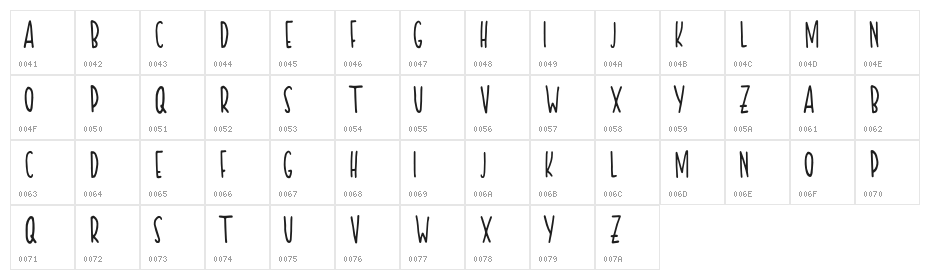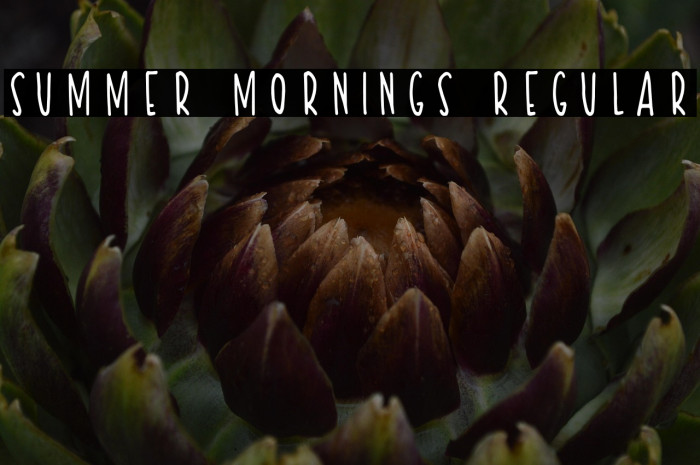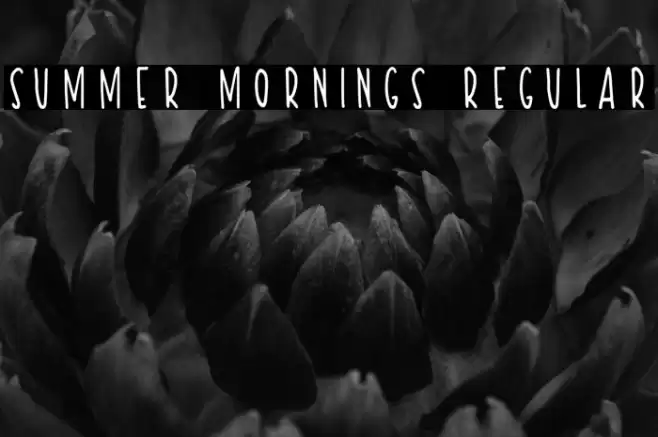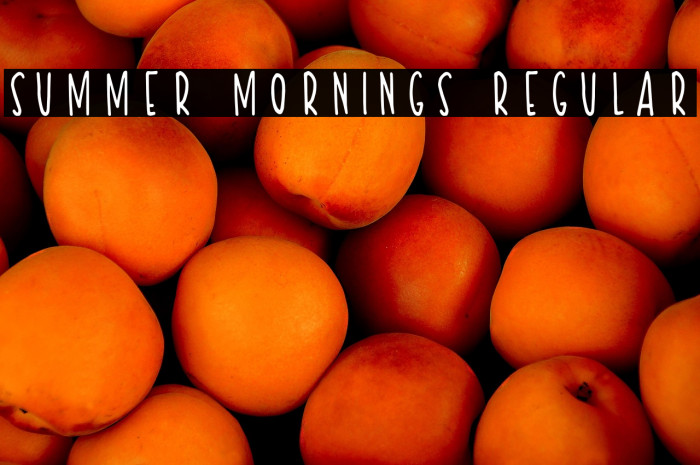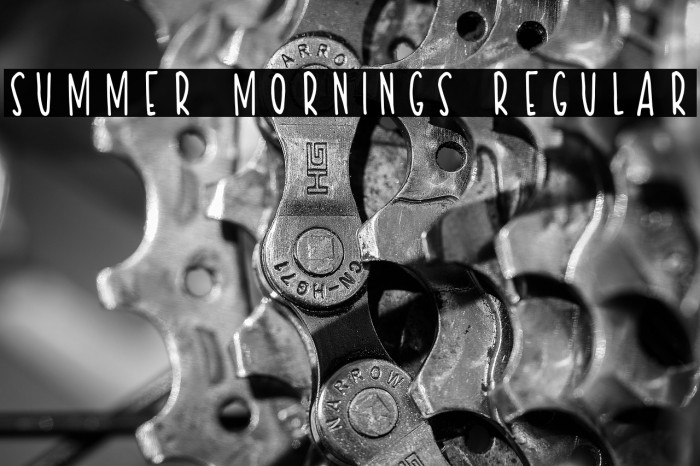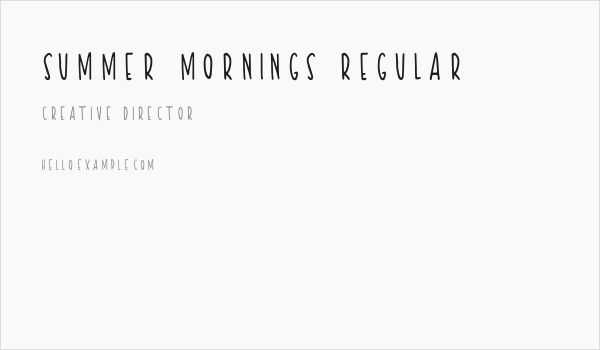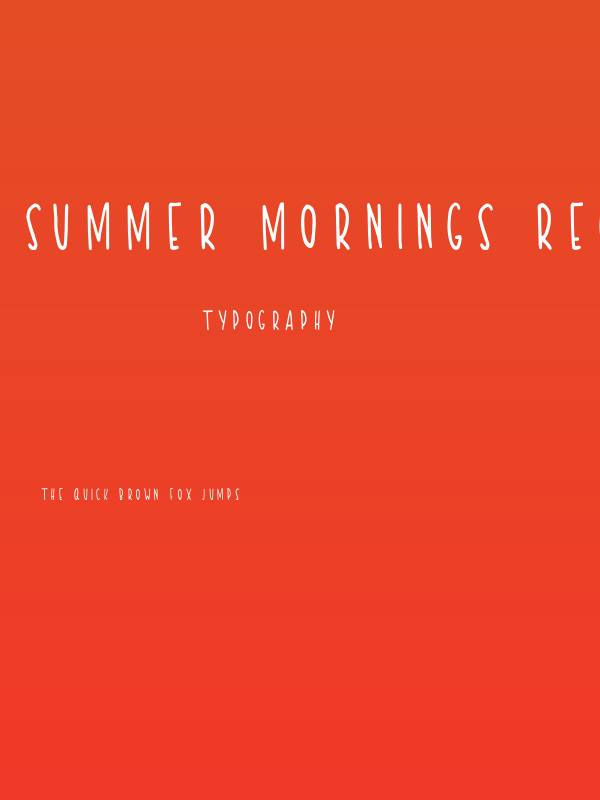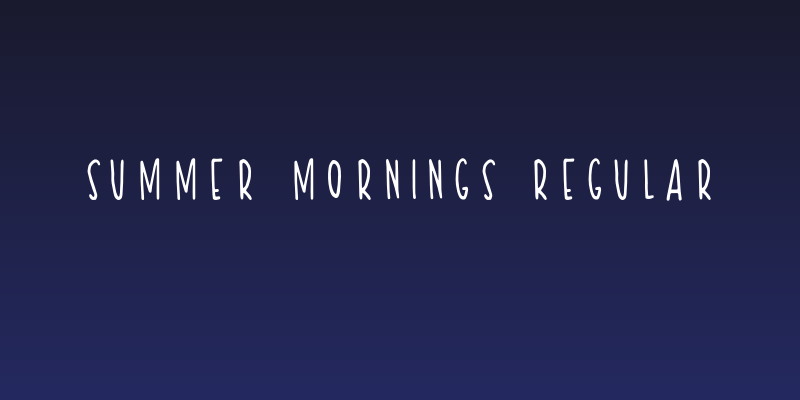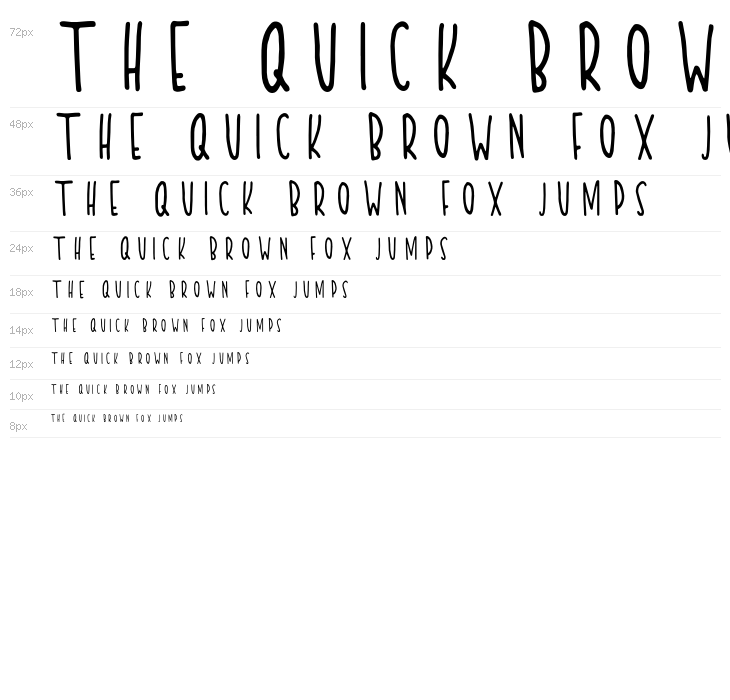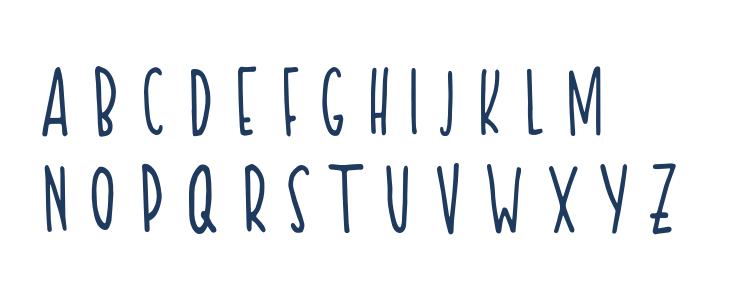
Summer Mornings Regular Font
Summer Mornings Regular Description
This font exudes a playful and casual vibe, characterized by its handwritten style that mimics the natural flow of pen on paper. The letters are slightly irregular, adding to the charm and authenticity of the design. Each character maintains a consistent height, while the strokes vary subtly in thickness, providing a dynamic yet cohesive appearance. The overall look is approachable and friendly, making it ideal for projects that require a personal touch. The font's simplicity and clarity ensure readability, while its unique style adds a touch of whimsy.